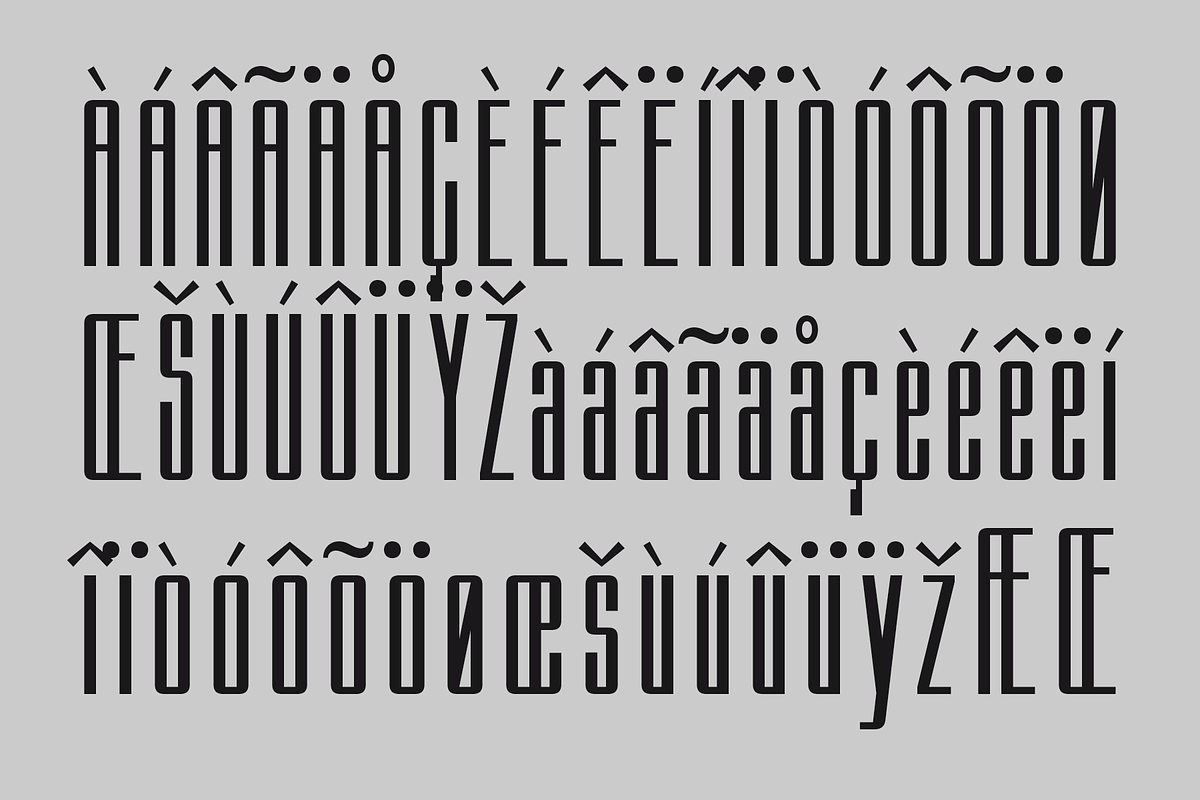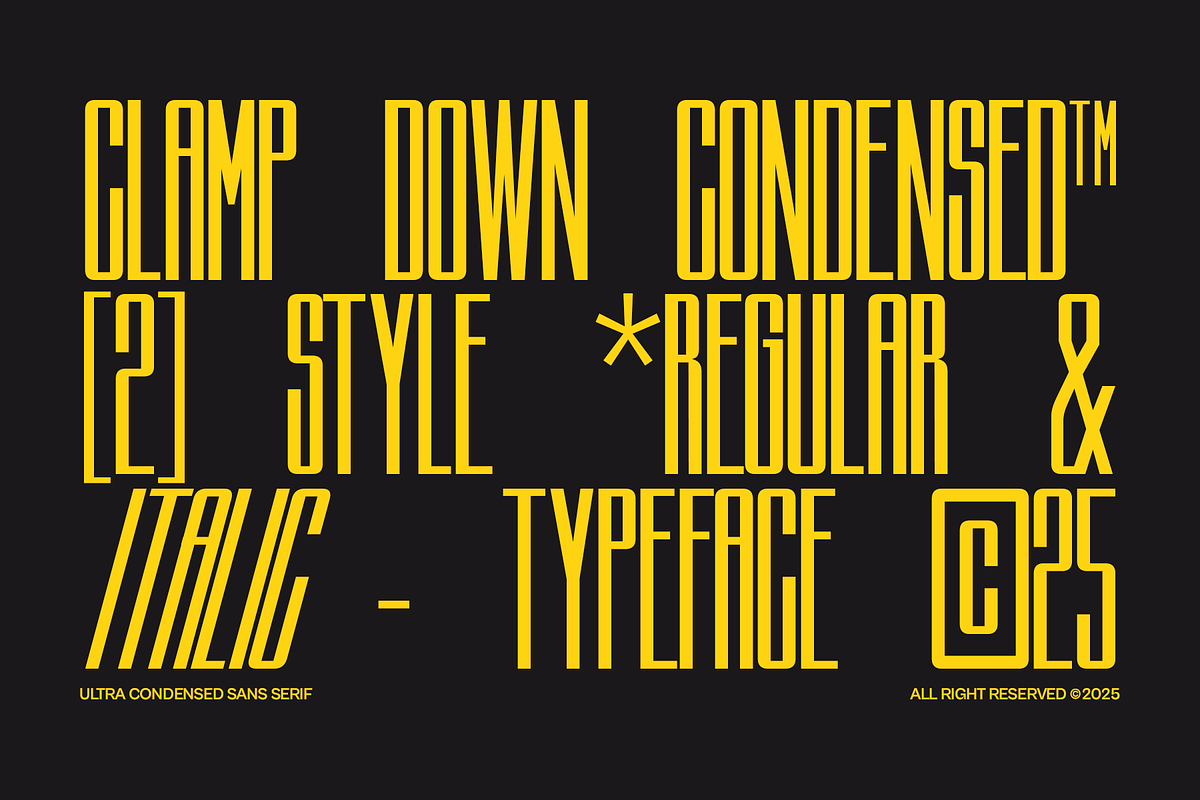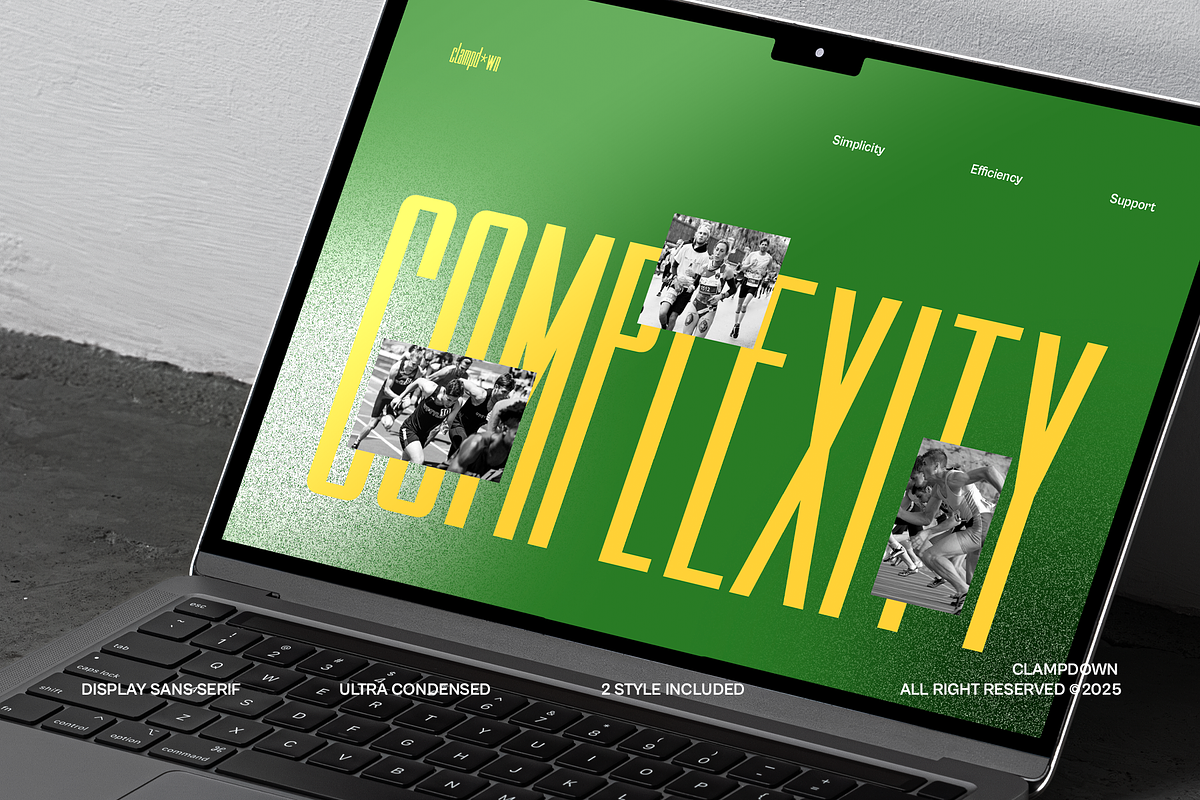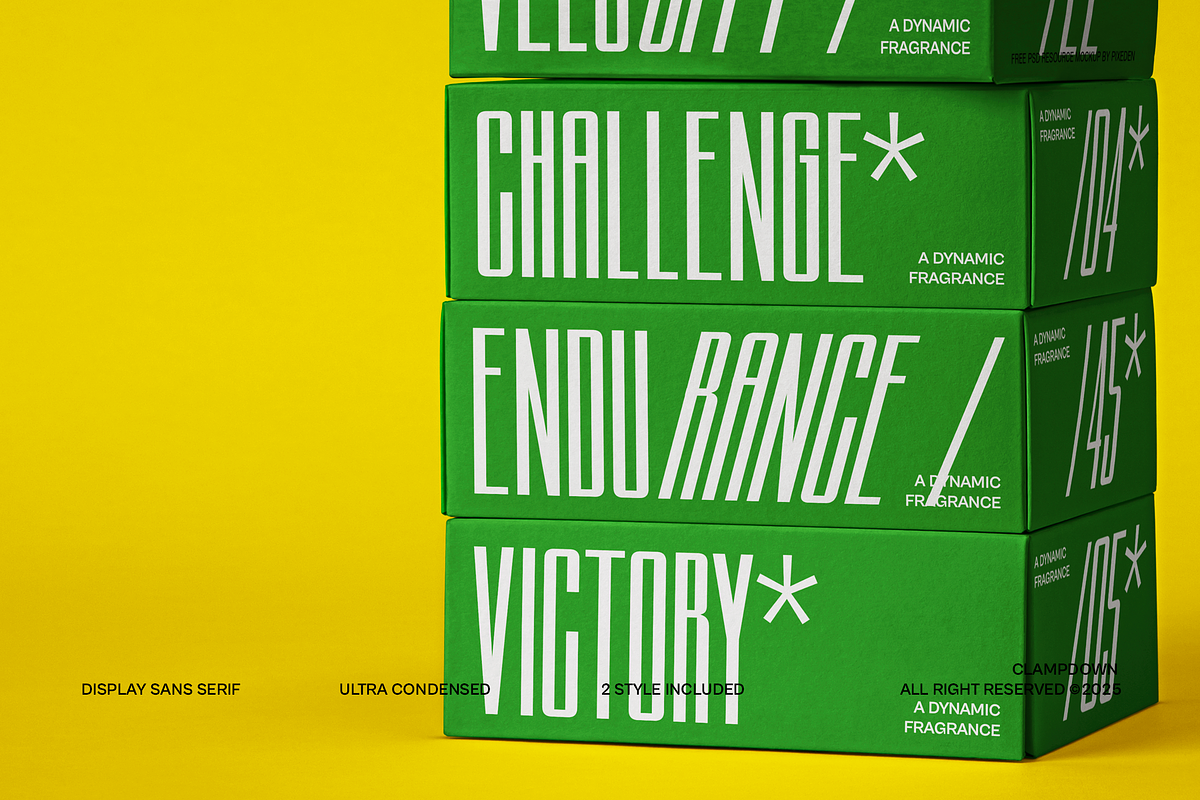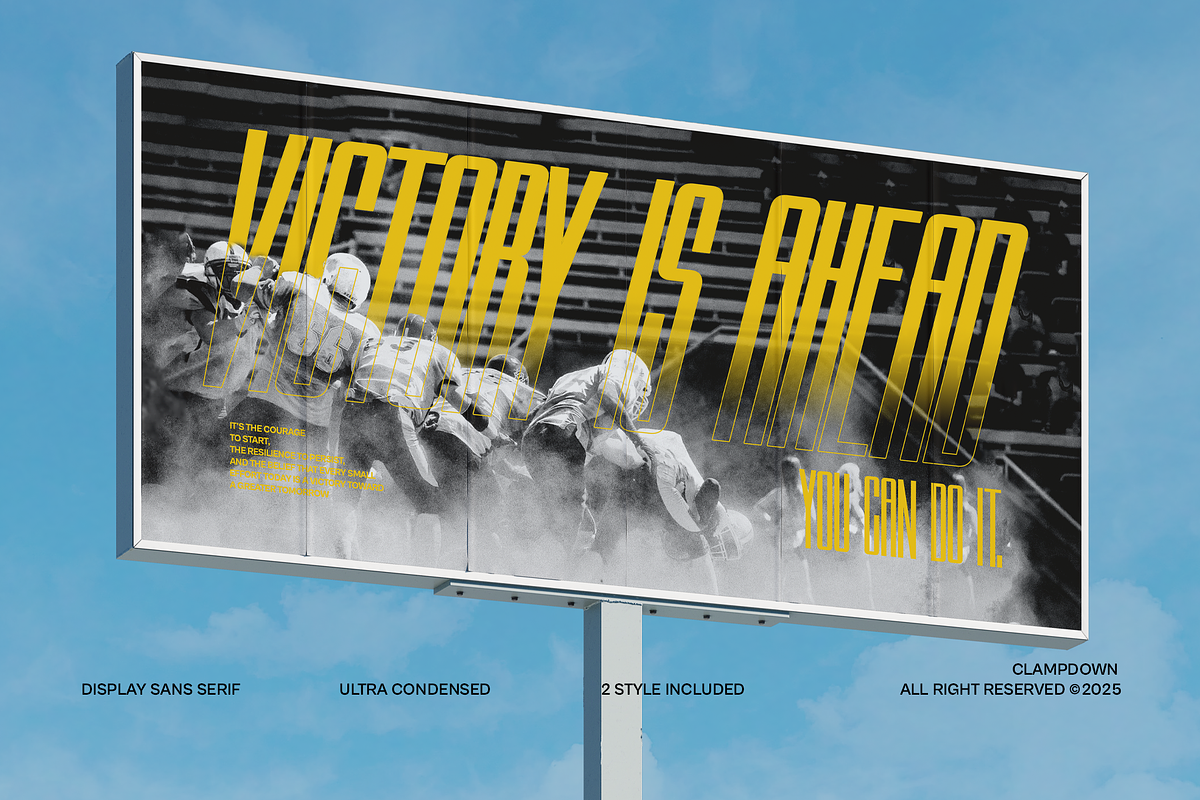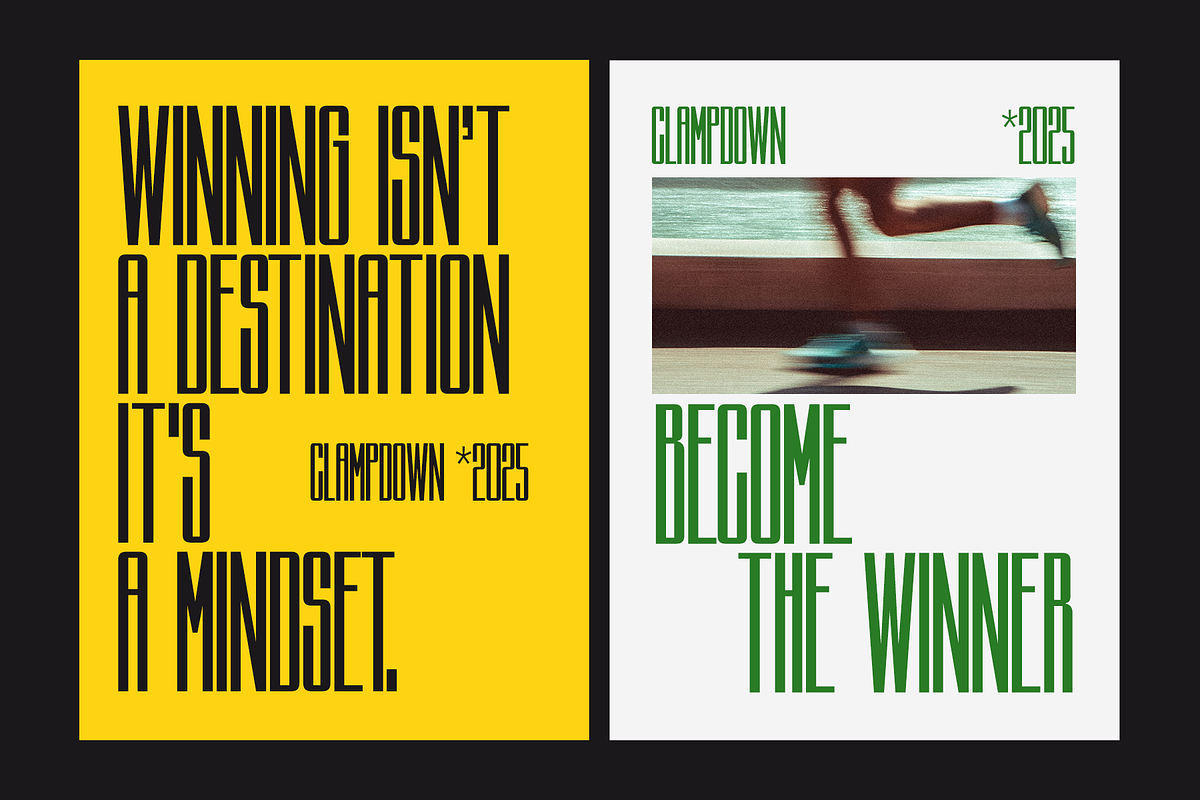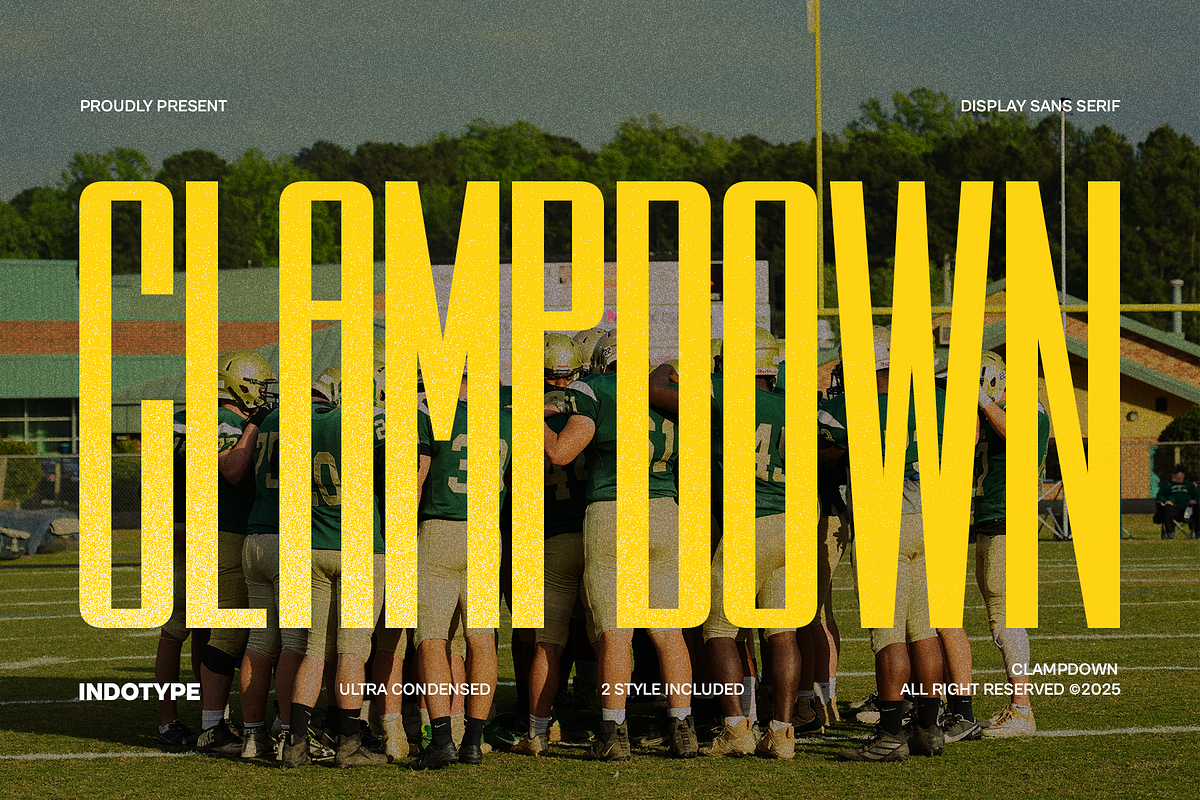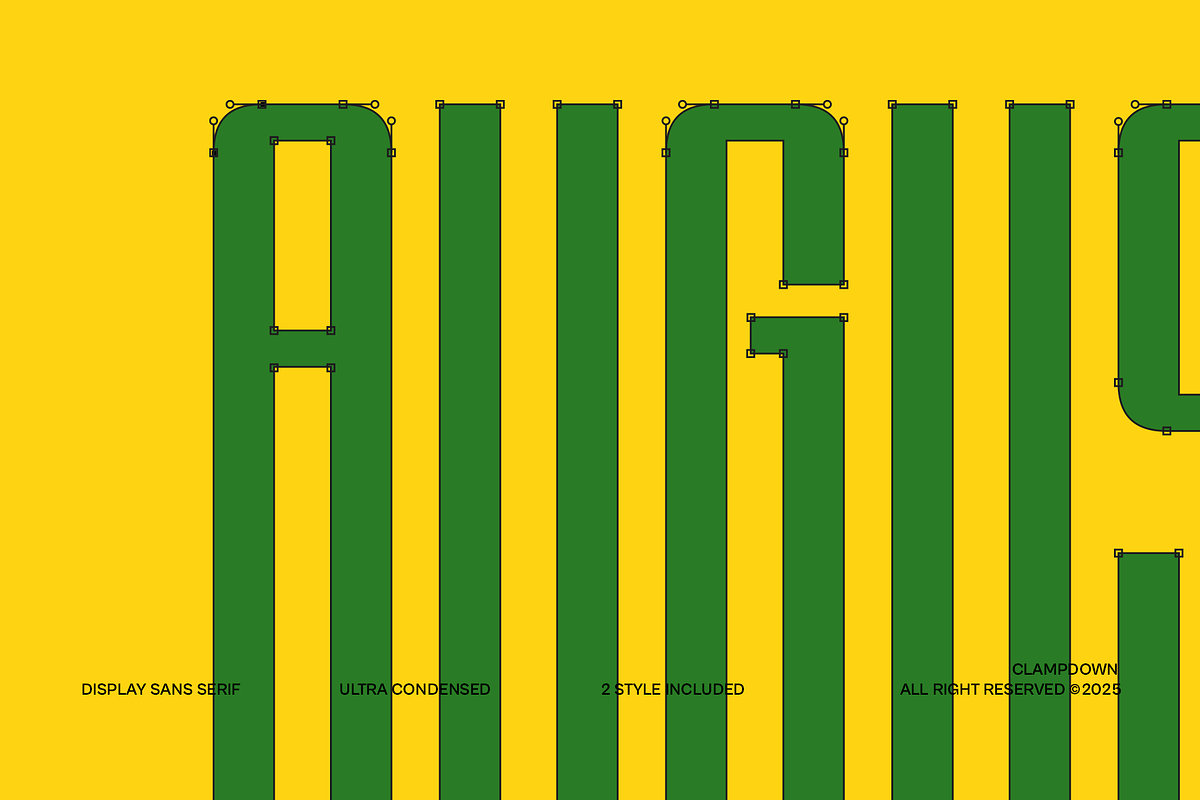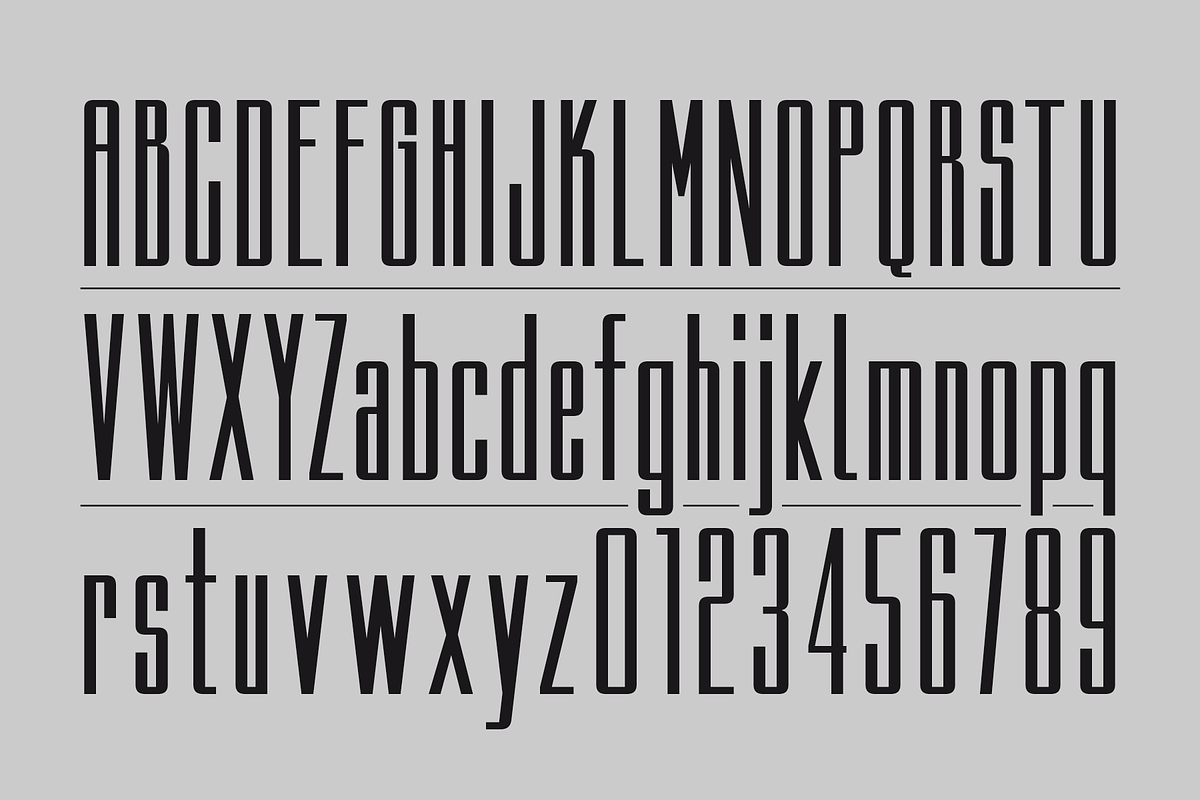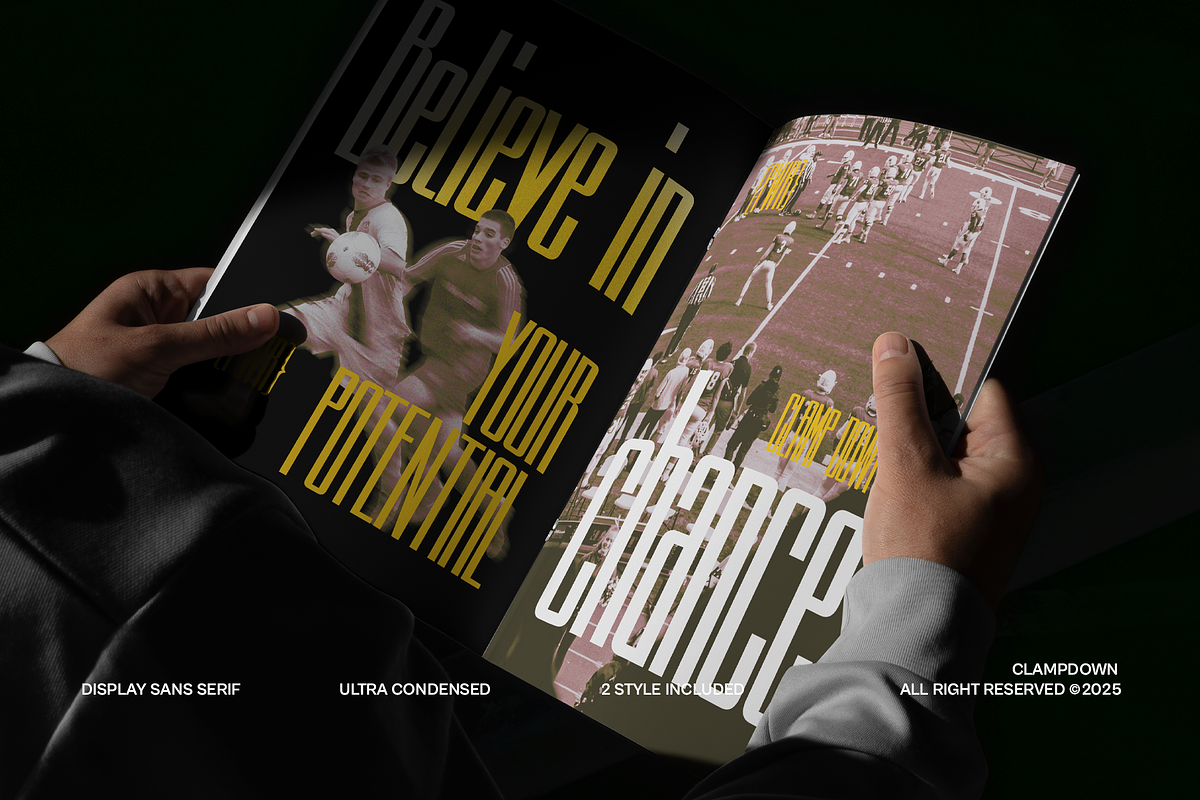
Clampdown - Ultra Condensed Sans
Clampdown is a striking ultra-condensed sans serif display font designed to deliver maximum impact in minimal horizontal space. With its tall, bold letterforms and strong vertical emphasis, Clampdown commands attention and ensures that every word stands out with authority. This typeface is ideal for posters, sports graphics, editorial headlines, branding projects, event promotions, and bold statement designs where space is limited but style cannot be compromised. Its narrow proportions make it perfect for creating powerful typography that feels modern, dynamic, and intense. Featuring 2 styles for added flexibility, Clampdown adapts effortlessly to a variety of creative needs. Whether you’re designing for athletic campaigns, music promotions, fashion branding, or high-energy advertising, this font brings boldness and clarity to the forefront.